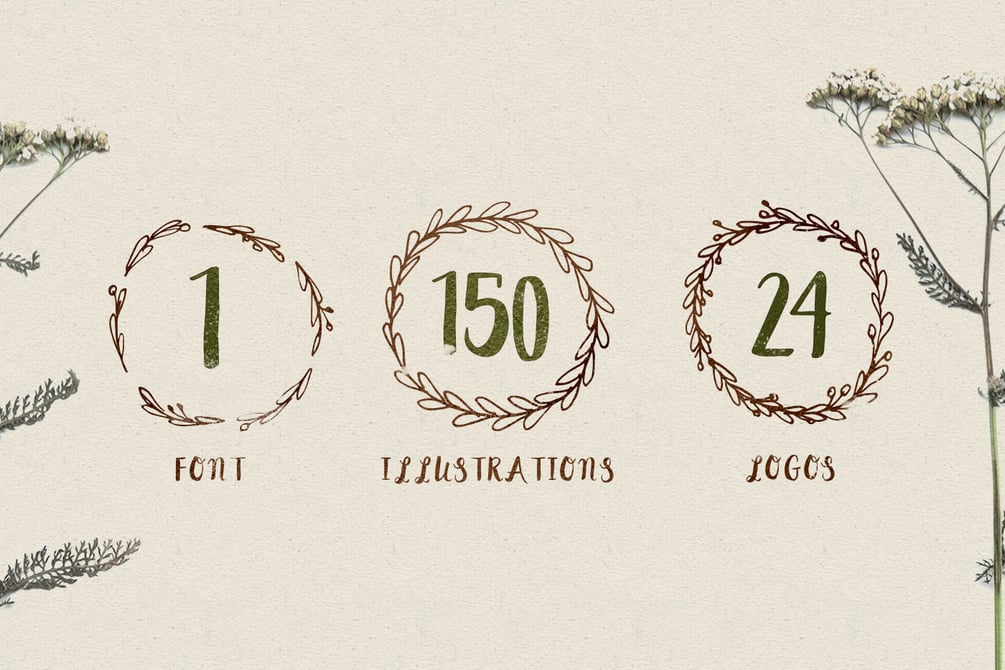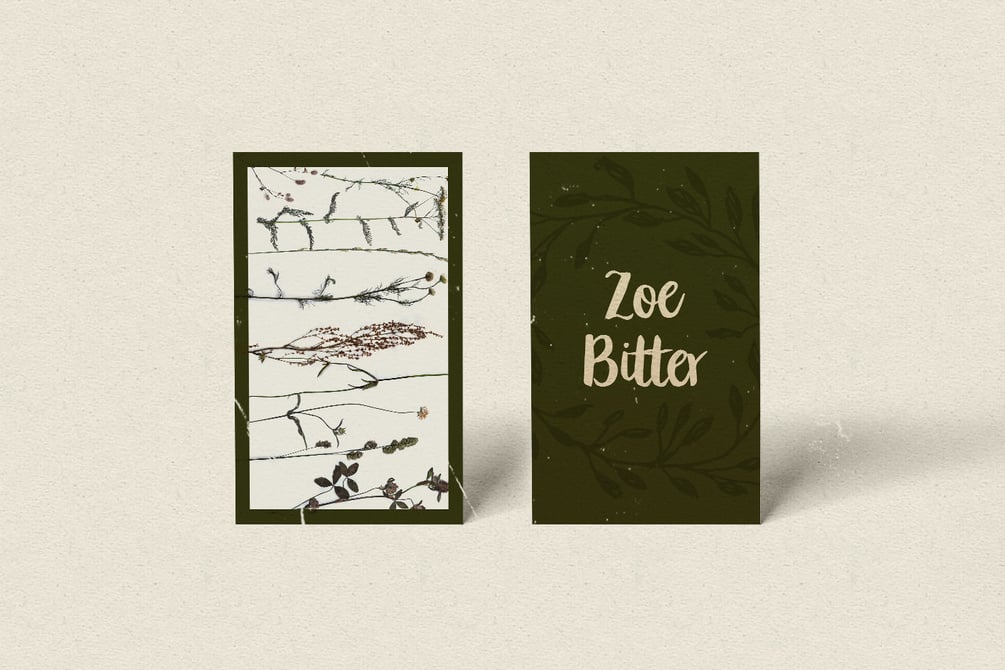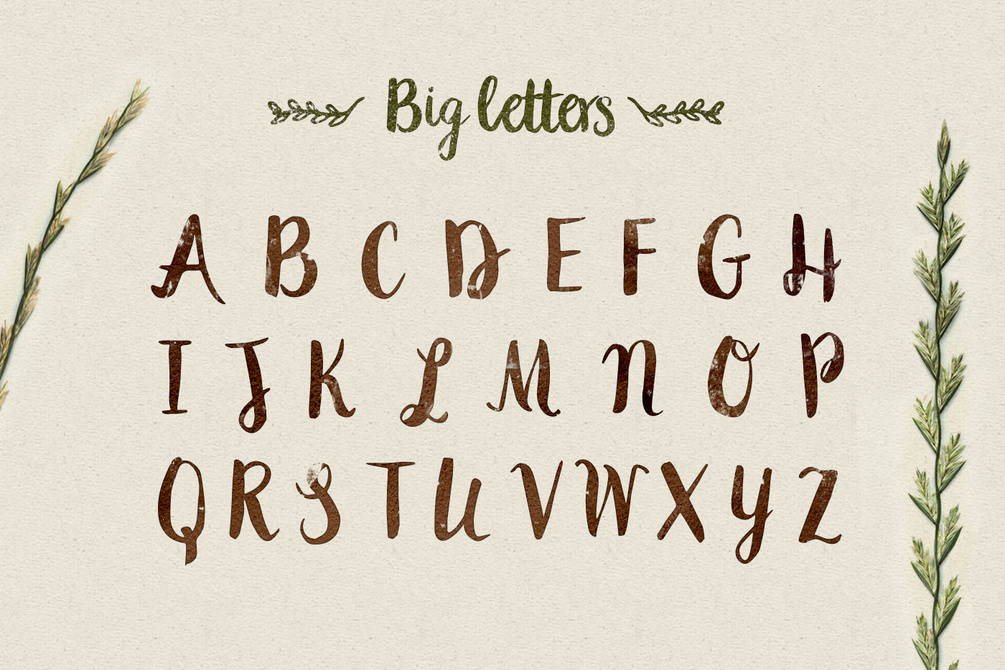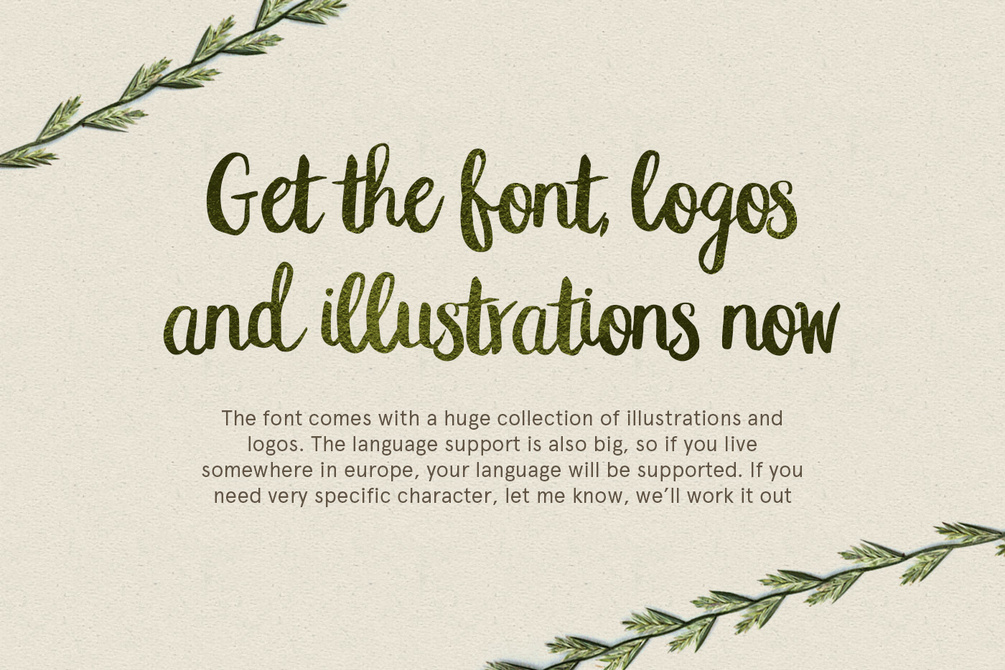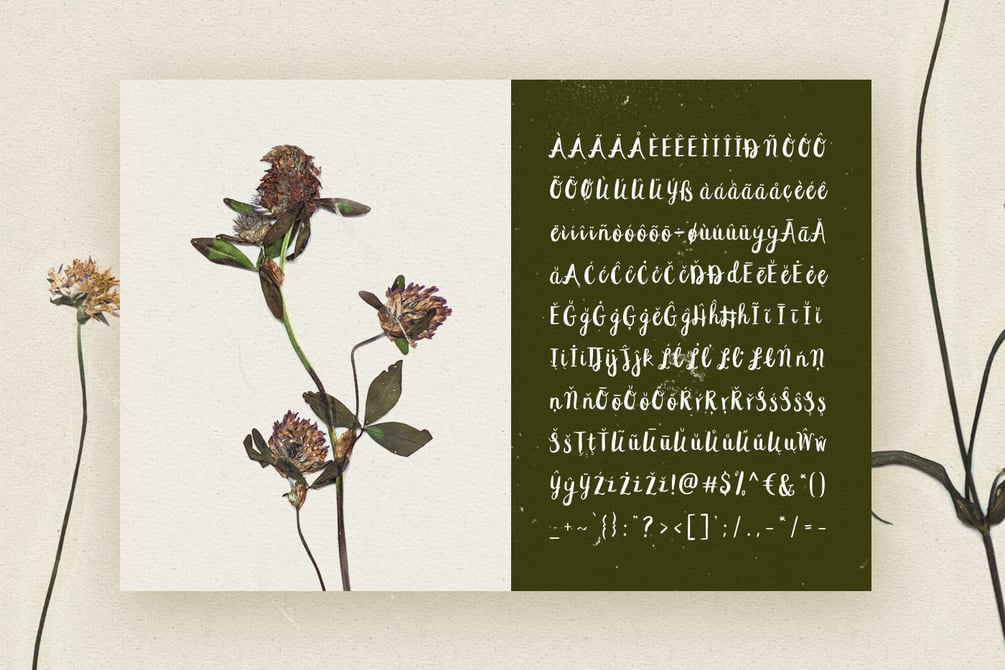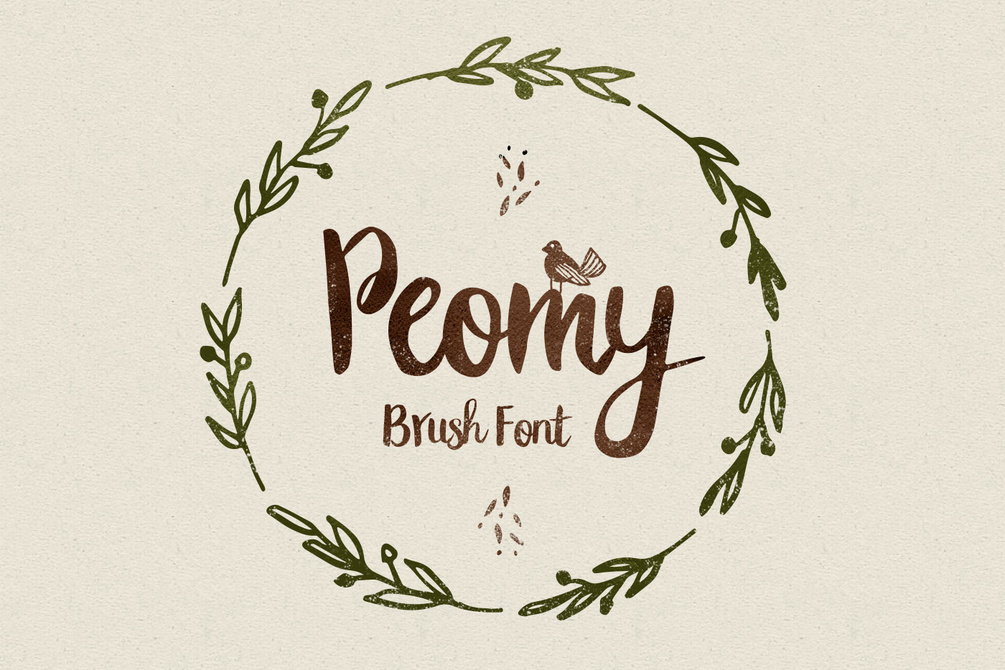
Peomy Extended Brush Font + 150 Illustrations + 24 Logos
Peomy Extended Brush Font was made by the artist Ieva and Krisjanis Mezulis. It comes with a free huge collection of illustrations and logos. The font is a Pro version of the Simple Caps only Peomy font. All the letters are brushed with a fude brush full with thick black ink, on a clean and smooth pastel paper. The unique style of the typeface is excellent for personalized designs.
The font features both uppercase and lowercase letters, so you will have a wide range of characters to use in typographic work. It has updated open type features and advanced kerning. Multiple language support.